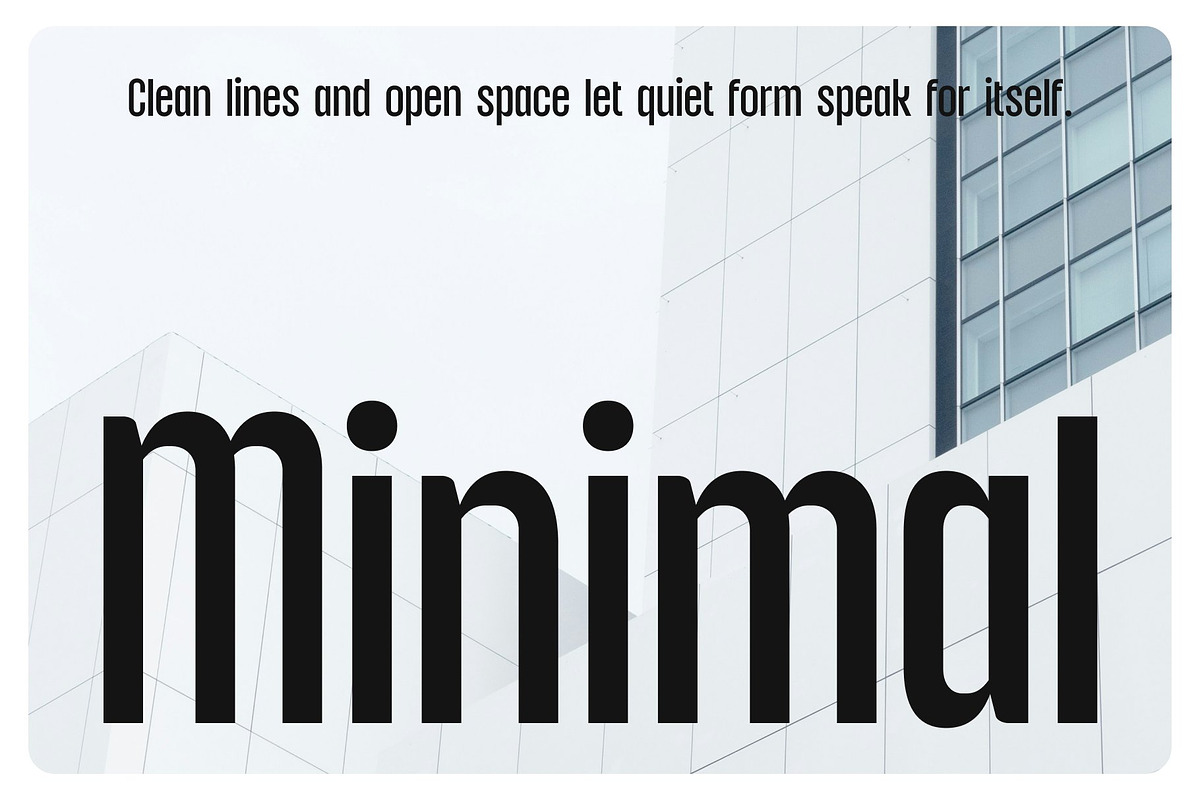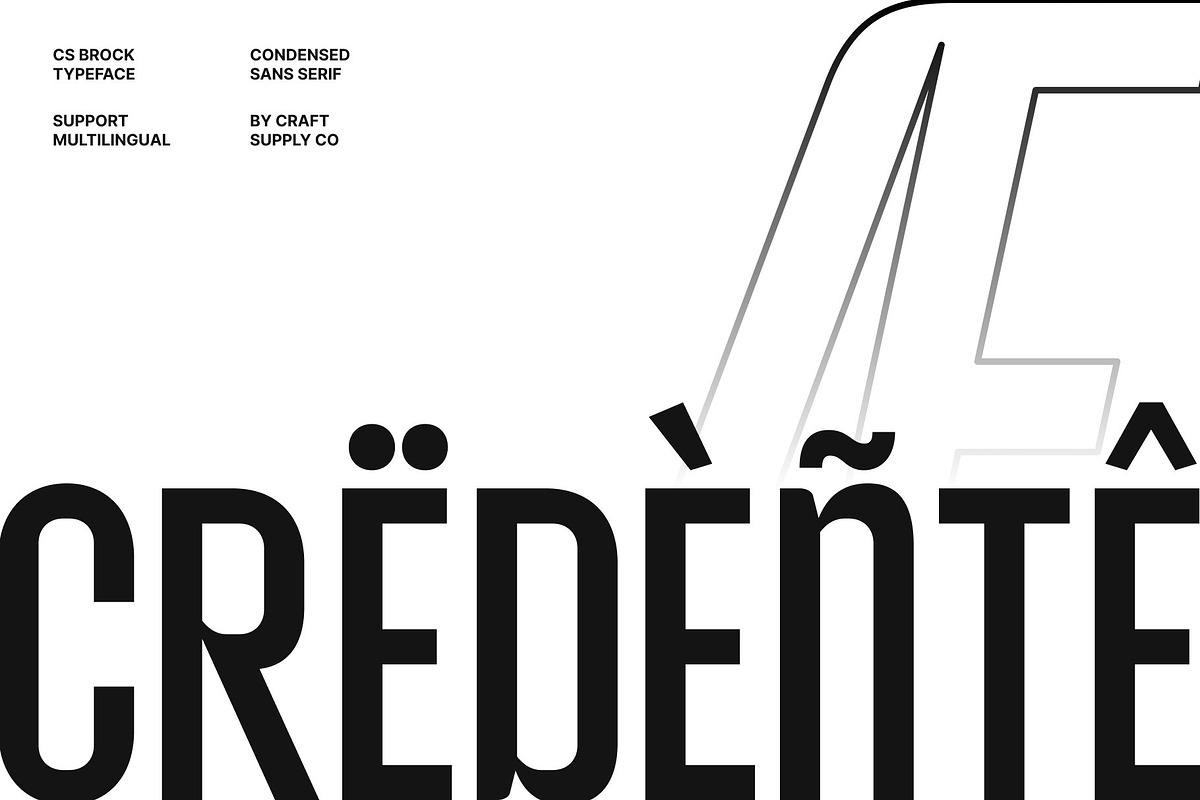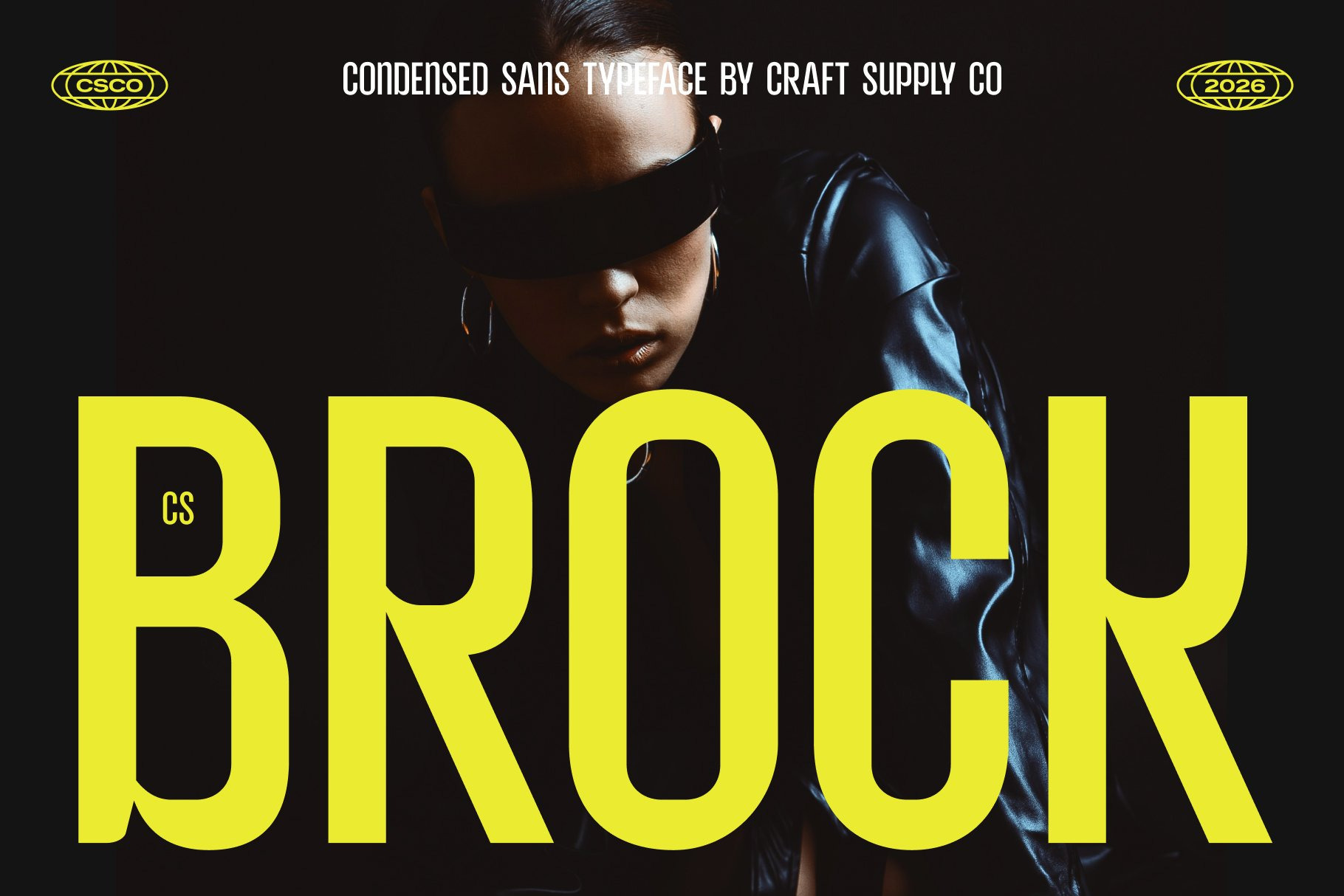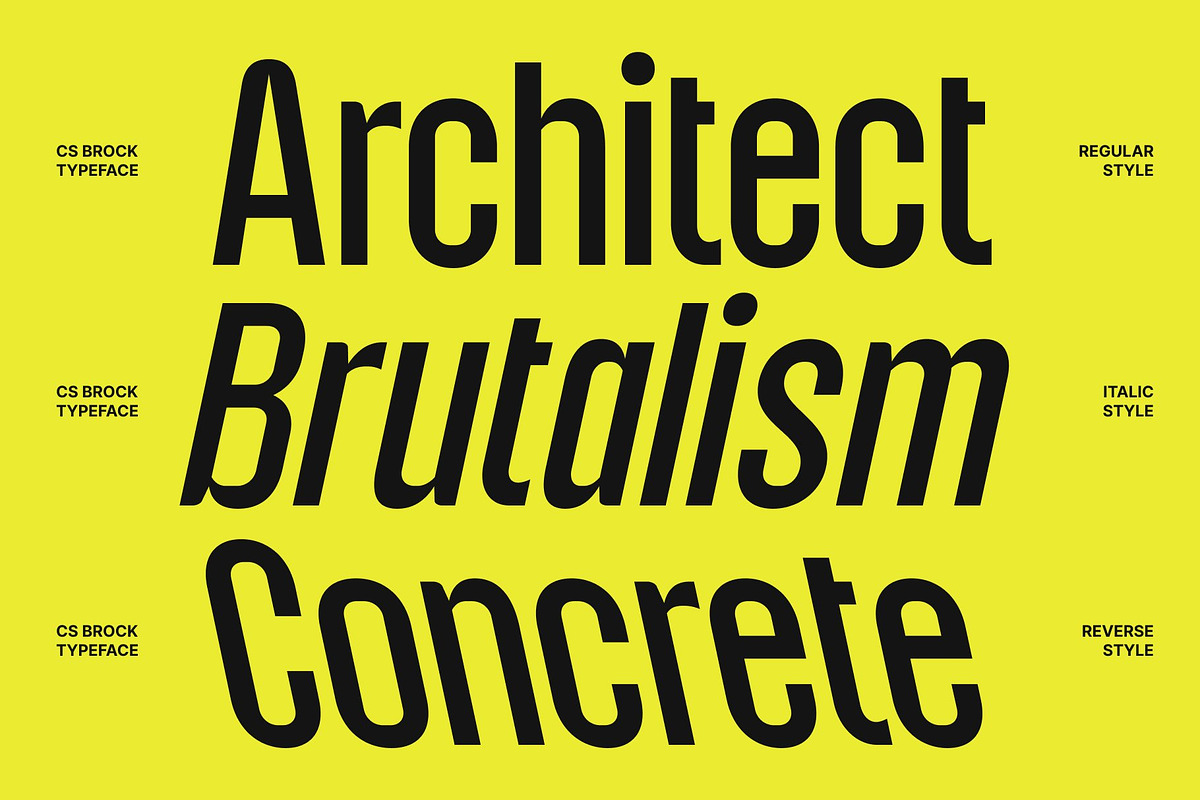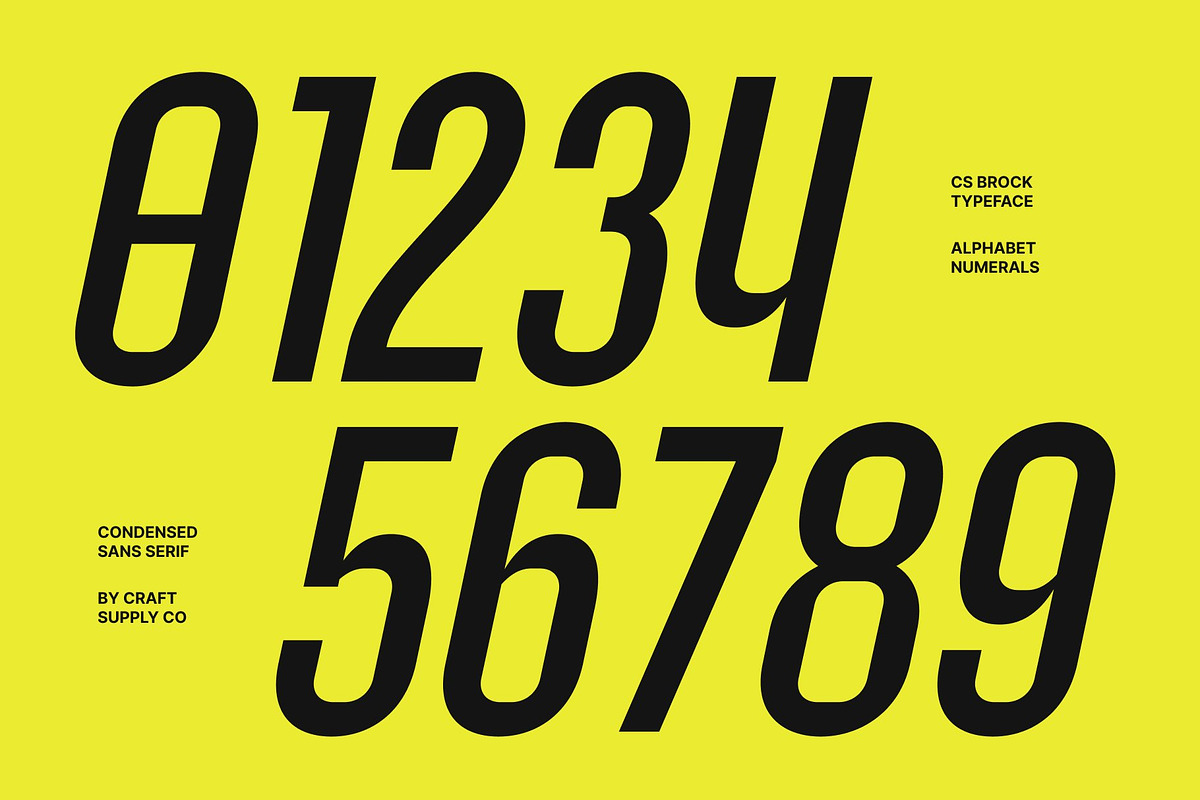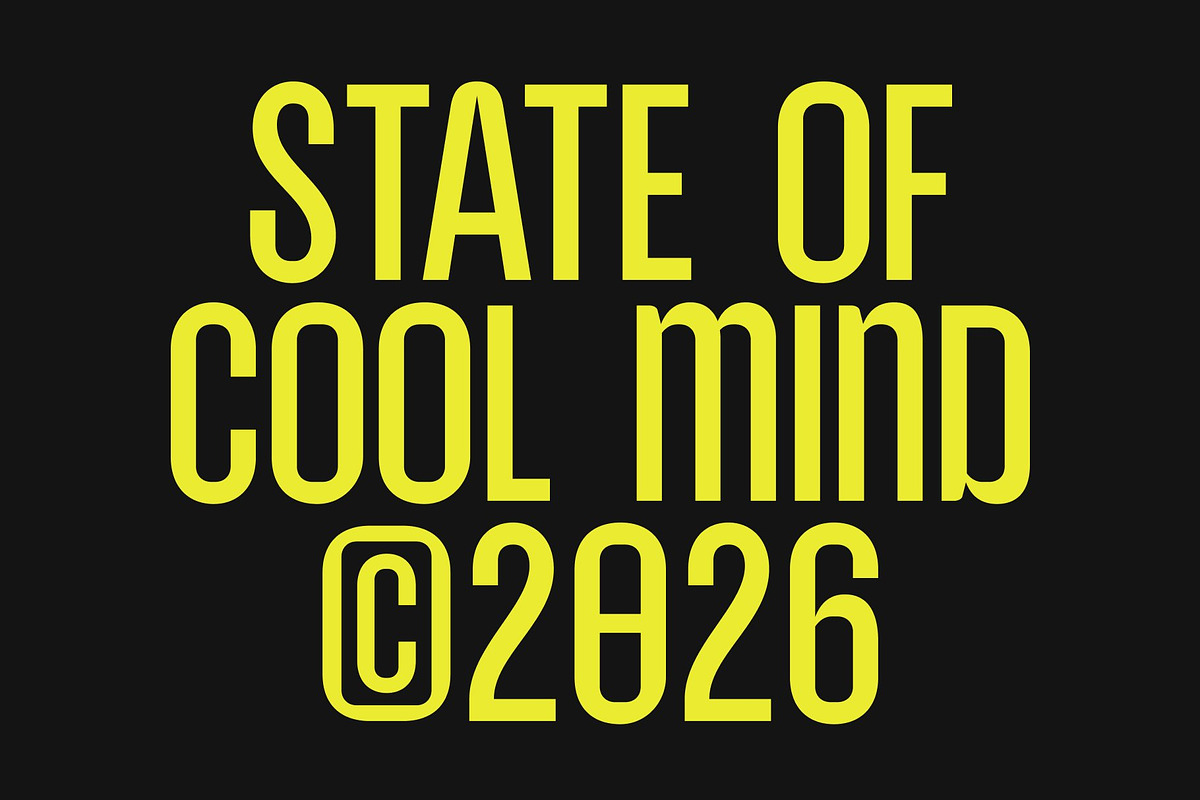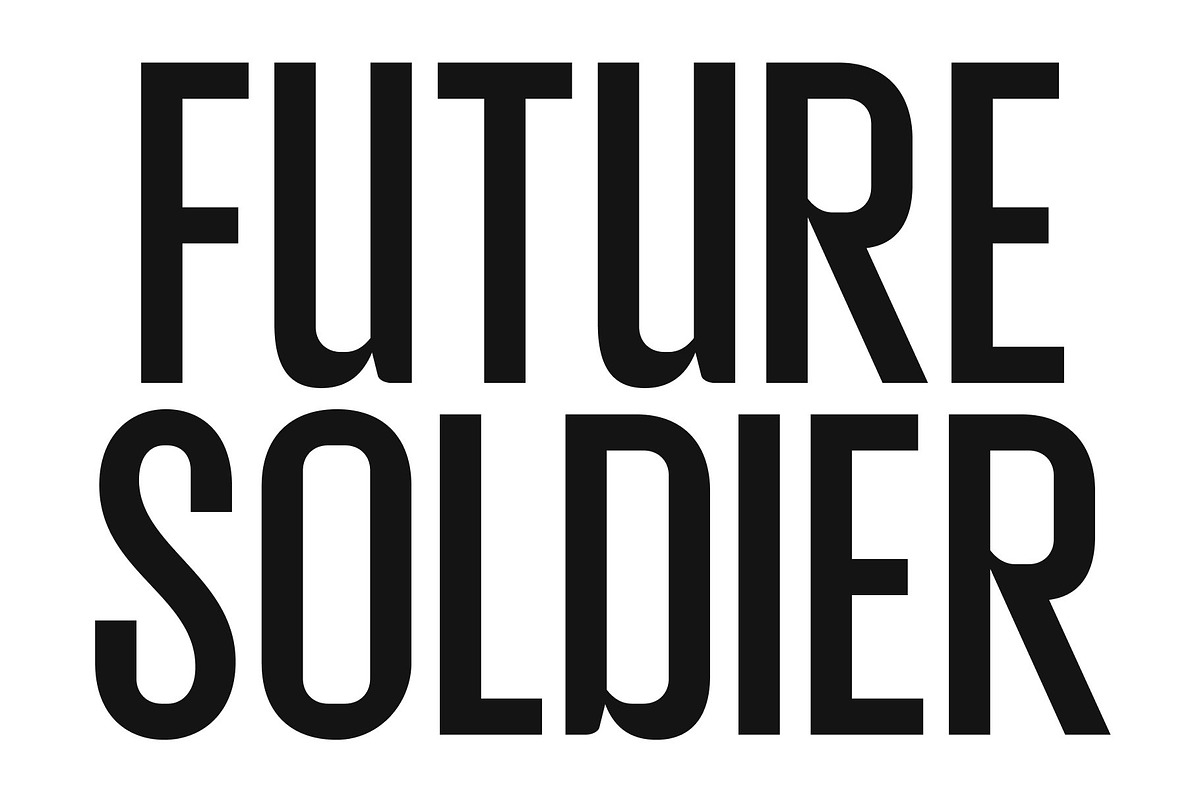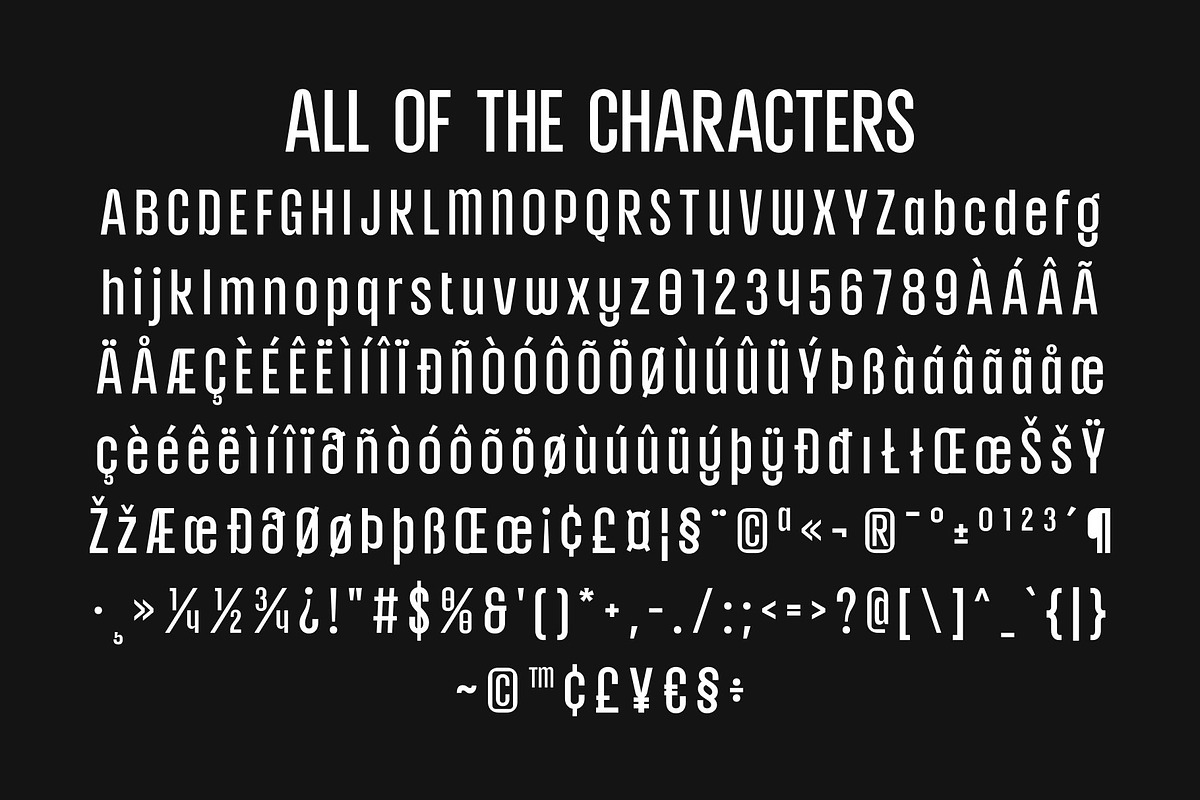
CS Brock – Condensed Font
CS Brock – Condensed Sans Serif with Modern Strength
Condensed Sans Serif with Clean Precision This is a compact and modern condensed sans serif font designed to deliver clarity and impact in every composition. Its streamlined letterforms are built with precision, allowing text to remain highly readable even in tight layouts. The condensed structure maximizes space efficiency while maintaining a strong and confident visual presence.
Masculine Character with Contemporary Edge The font carries a clean and masculine personality that feels bold, structured, and purposeful. Strong vertical proportions and sharp geometry create a confident tone that works perfectly for designs that need to appear assertive and modern. This contemporary edge gives every headline and title a commanding and professional look.
Fresh Design for Modern Visual Communication This font embraces a fresh and minimalist aesthetic that fits seamlessly into modern design trends. Its uncluttered shapes and balanced spacing make it adaptable for both digital and print environments. Whether used in bold headlines or sleek layouts, the font delivers a crisp and energetic impression.
Perfect for Headlines, Posters, and Branding Built for visibility and versatility, this font excels in headlines, posters, and branding projects. From logo design and marketing materials to editorial layouts and advertising campaigns, the font provides a strong and reliable voice. It helps designers communicate confidence, clarity, and modern style in every project.
CS Brock Regular
CS Brock Italic
CS Brock Reverse Italic